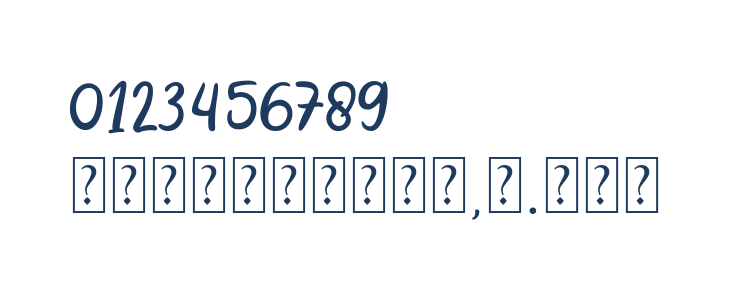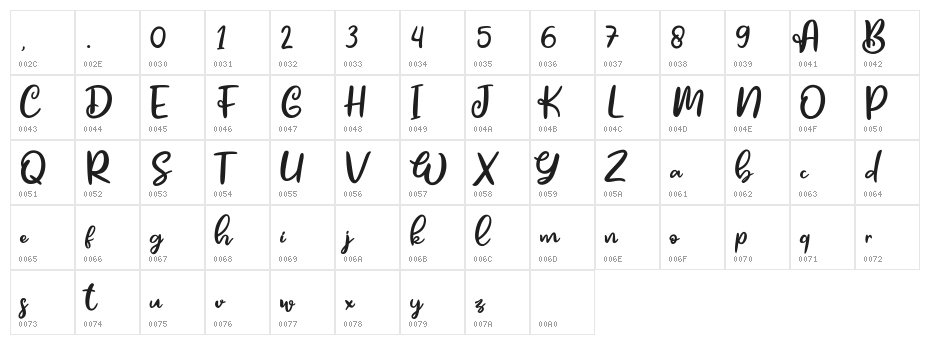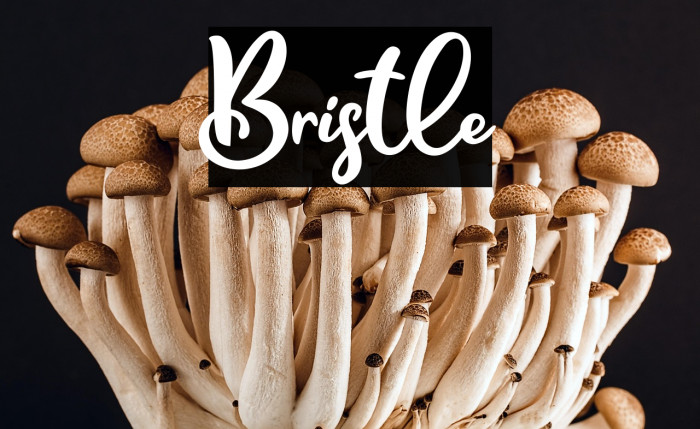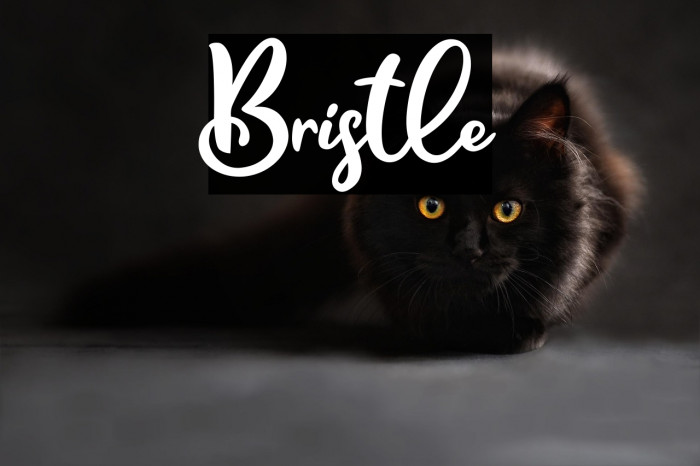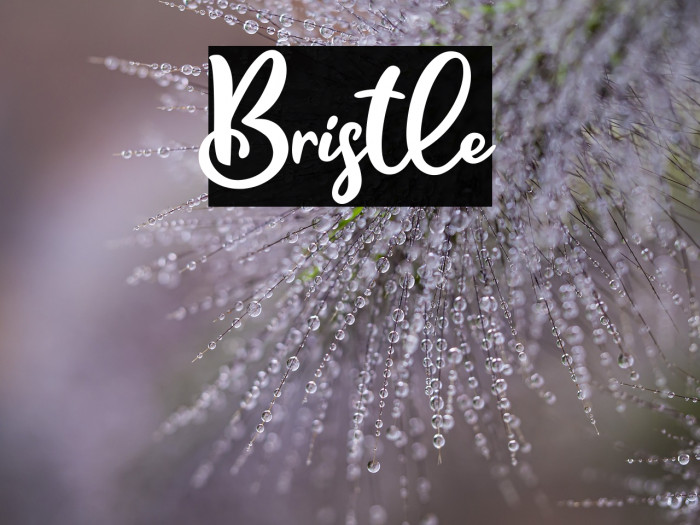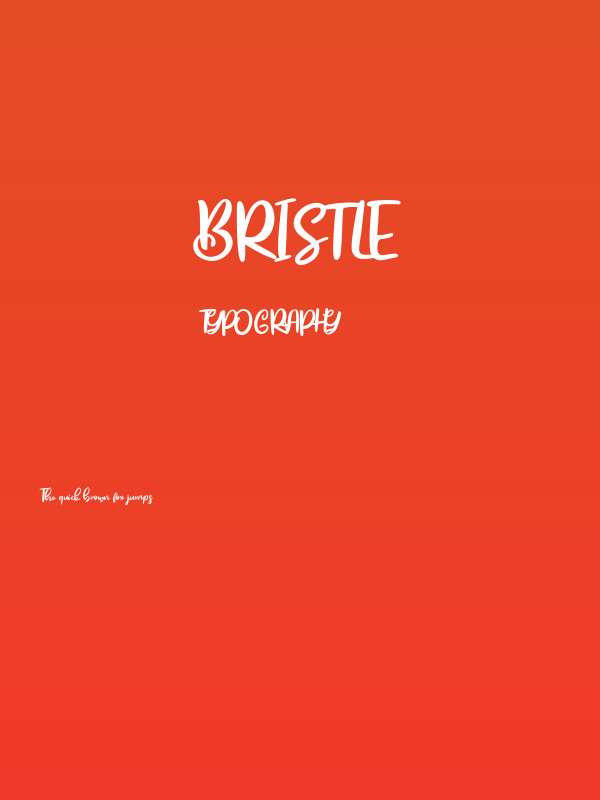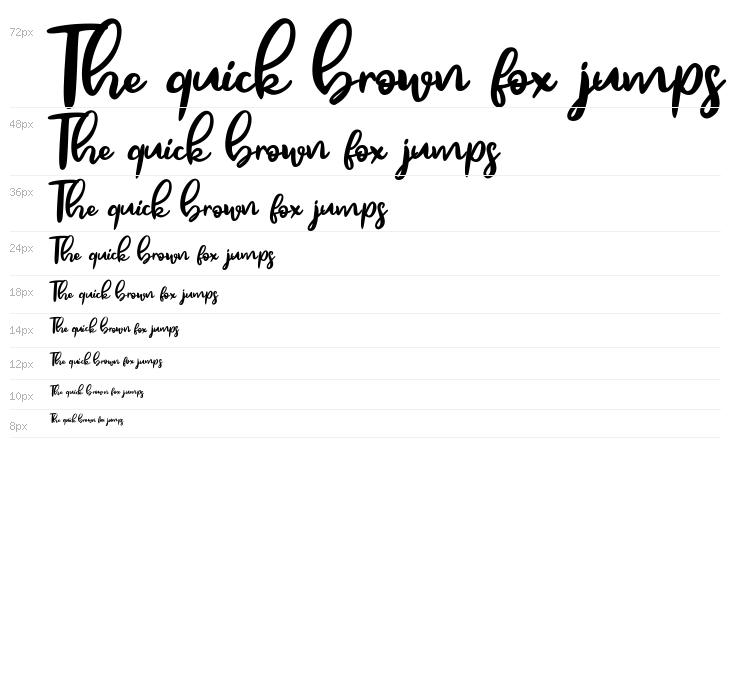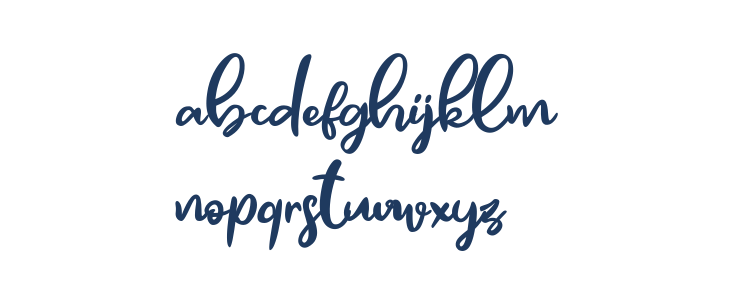
Bristle Font
Bristle Description
This font exudes a playful and lively character with its bold and flowing script style. The letters are interconnected, creating a sense of continuity and movement. The uppercase letters are slightly more structured, while the lowercase letters exhibit a more casual and freeform style. The numbers maintain the same playful aesthetic, ensuring consistency across all characters. The font's bold strokes and smooth curves make it highly legible, even at smaller sizes. Its energetic and dynamic appearance makes it suitable for projects that require a touch of personality and flair.
| Proposed Projects | Ideal for greeting cards, playful branding, social media graphics, and event invitations. |